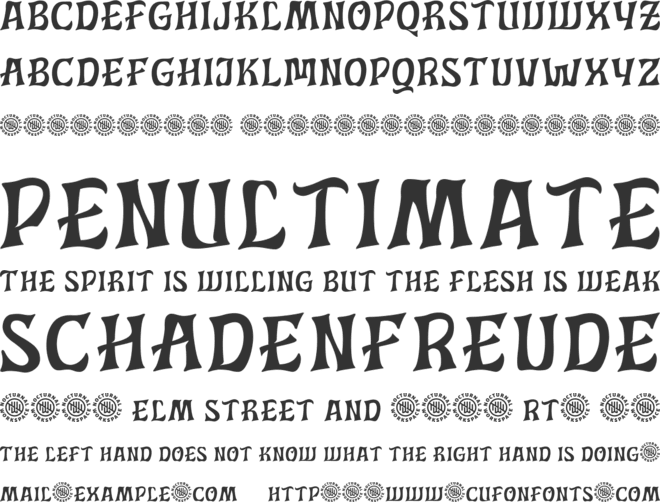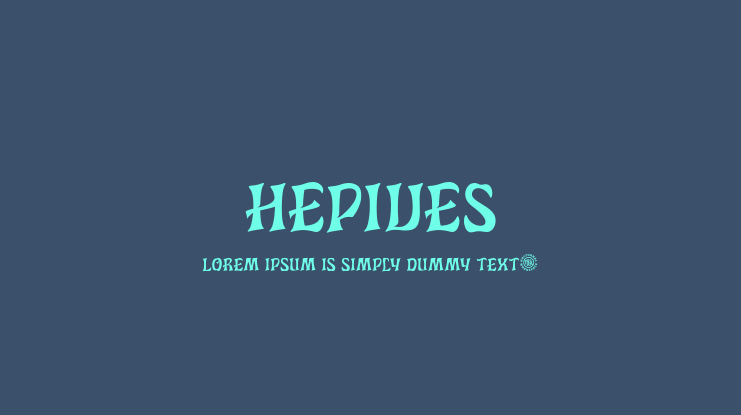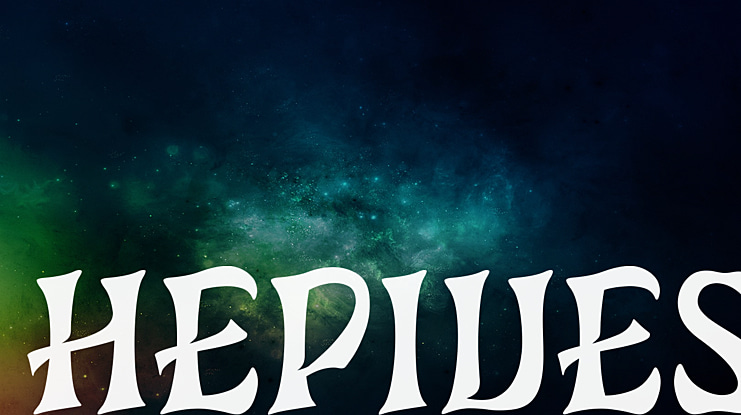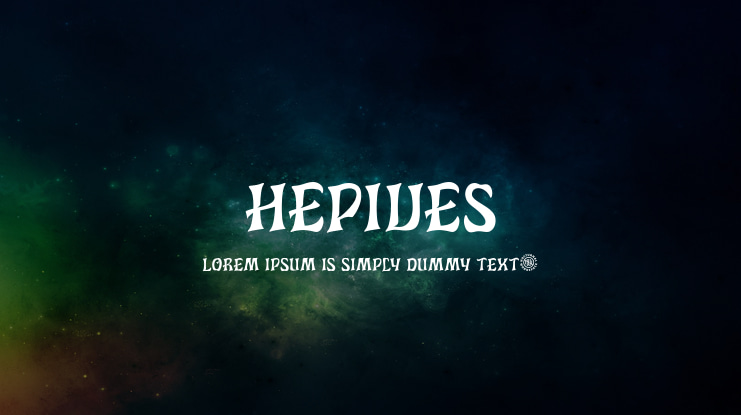
Hepives Font
Tirta Sudibya
Hepives born to be a clothing trademark for the adventurous lover community. Initially we only made a typographic logo with the name “HEPIVES” then we developed it again into a font. inspired by old vintage denim labels, old clothes commercials, labels on 90s tapes.. Ideal for use in logos, flyers, invitations, labels, clothes and more.